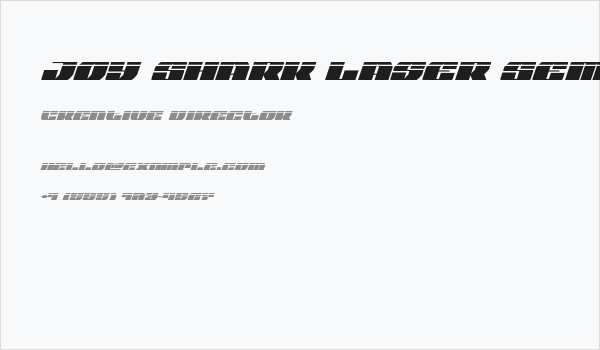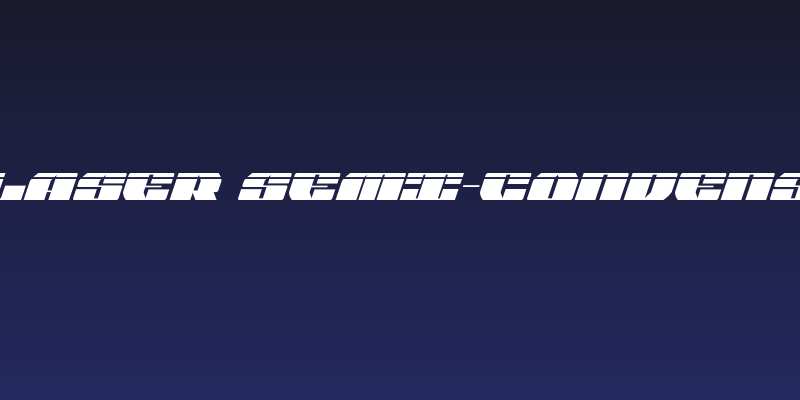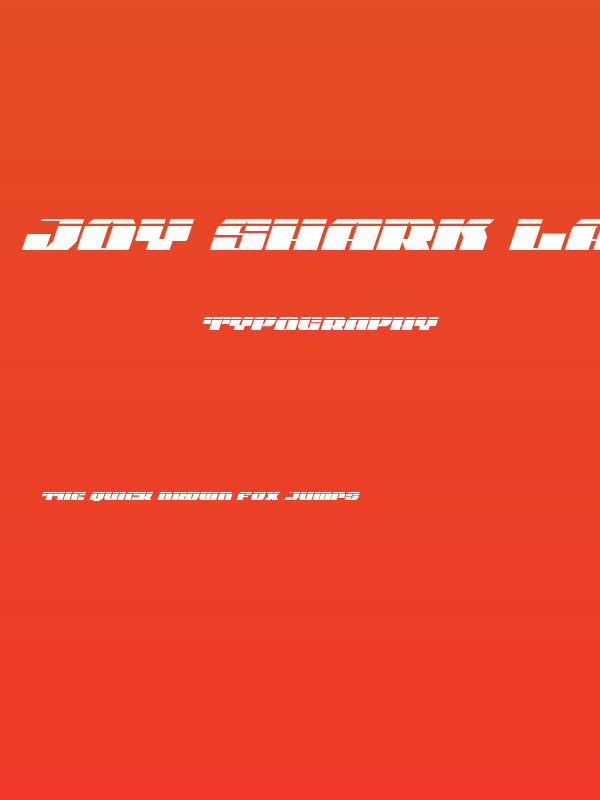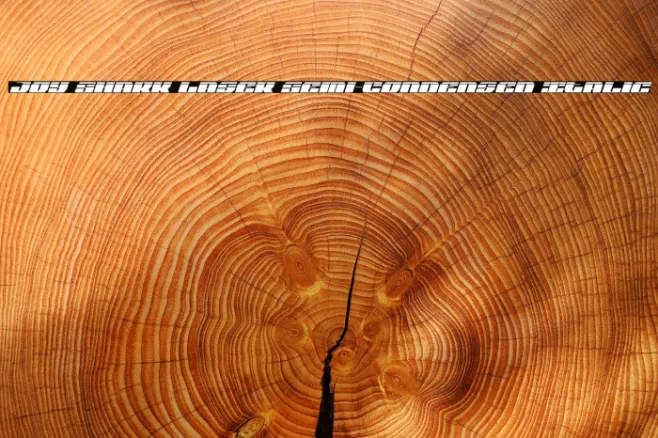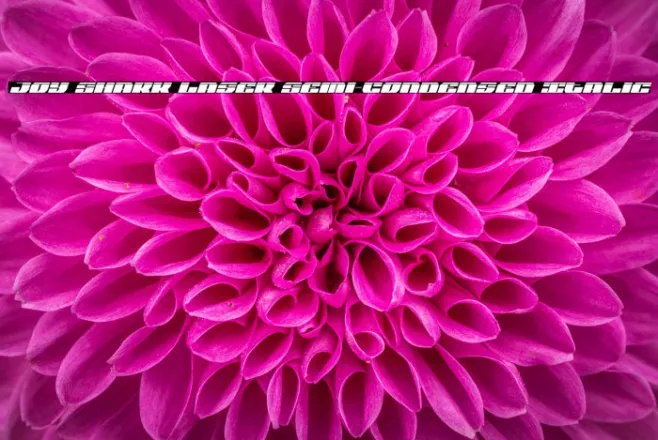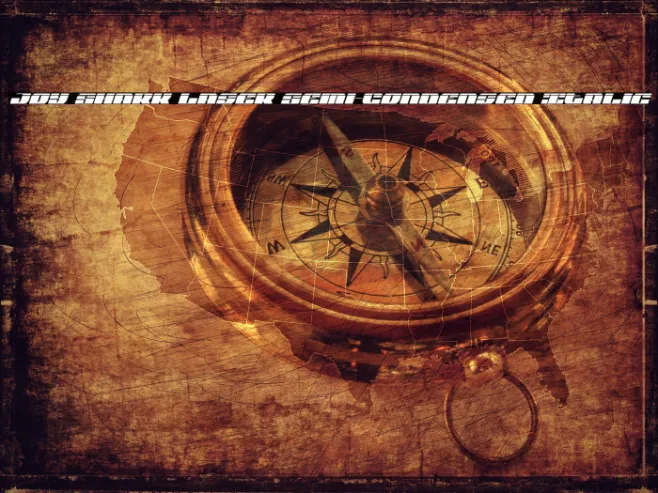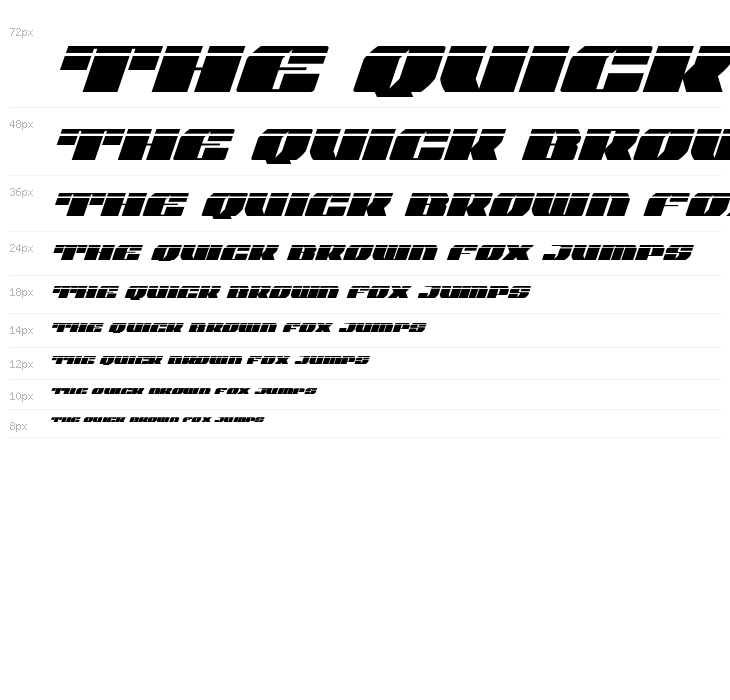
Joy Shark Laser Semi-Condensed Italic Font
Joy Shark Laser Semi-Condensed Italic Description
This font features a bold and dynamic style with a futuristic and angular design. The characters are semi-condensed and italicized, giving them a sleek and forward-leaning appearance. The geometric shapes and sharp edges create a sense of movement and energy, making it ideal for projects that require a modern and edgy look. The uppercase and lowercase letters maintain a consistent style, while the numbers and special characters integrate seamlessly into the overall design. The font's unique aesthetic is both eye-catching and versatile, suitable for a variety of creative applications.
| Proposed Projects | Ideal for sci-fi themed projects, video game titles, tech branding, and dynamic posters. |